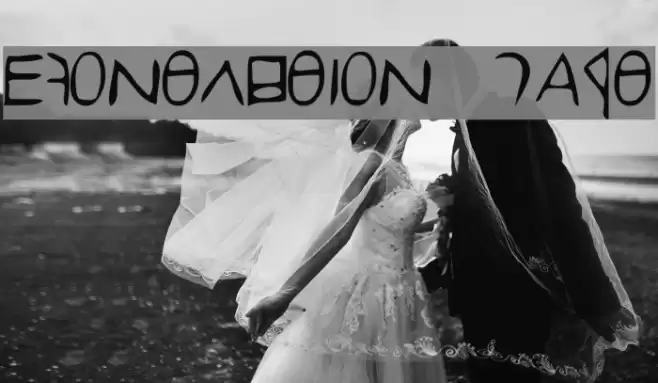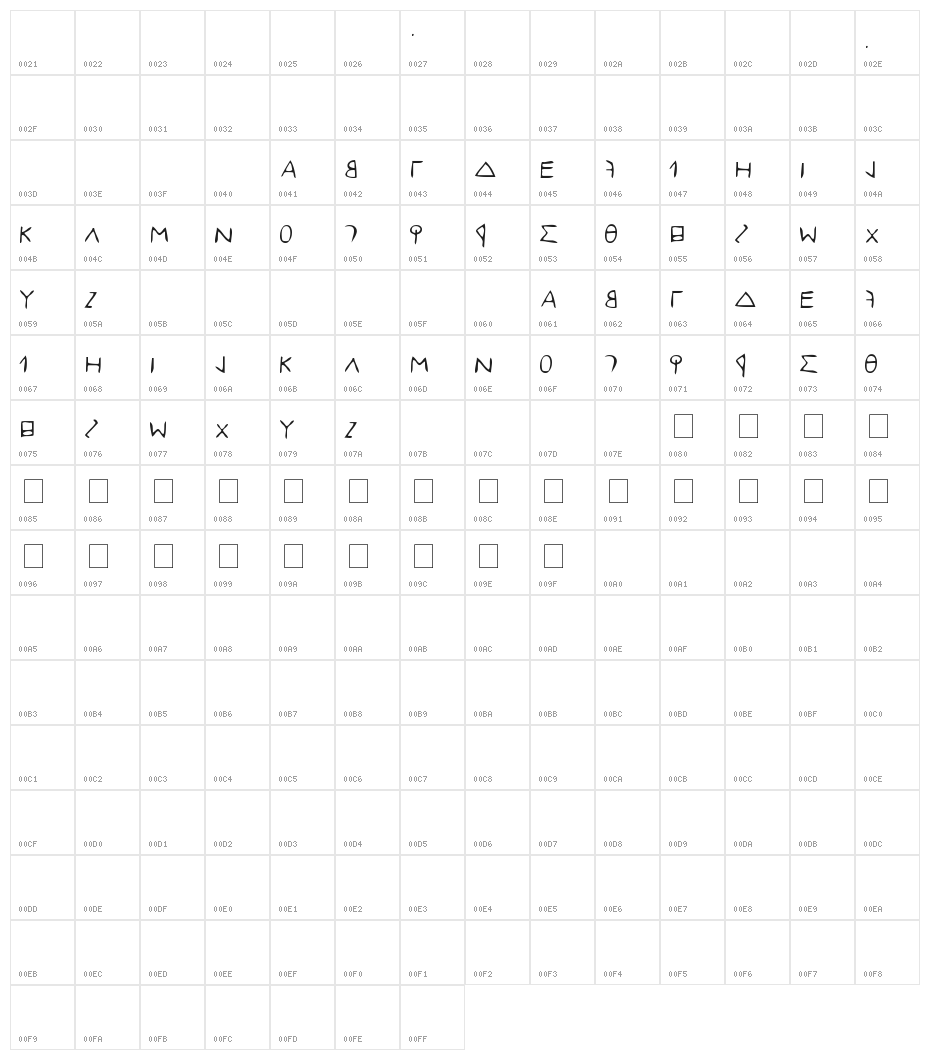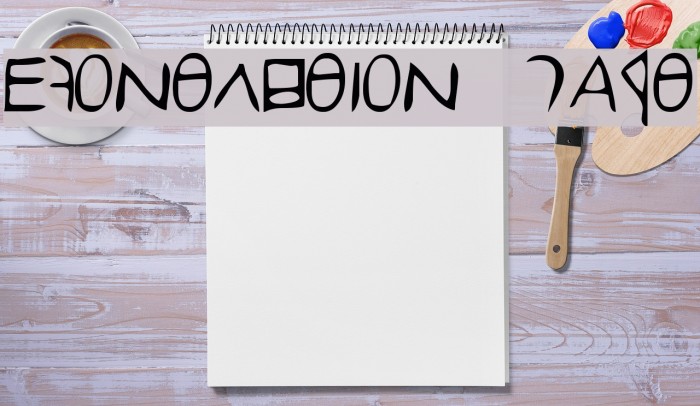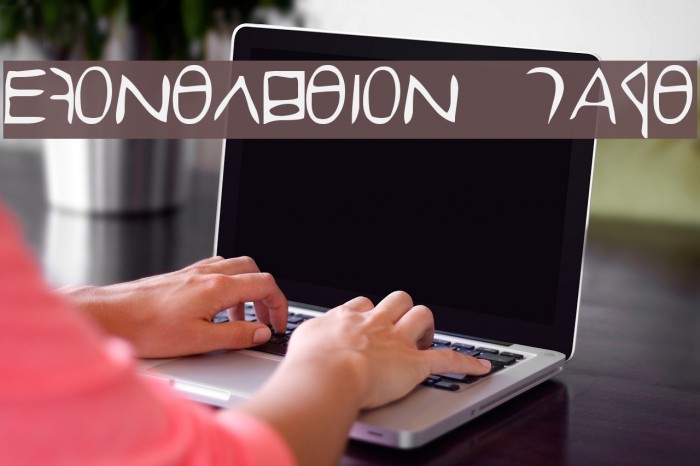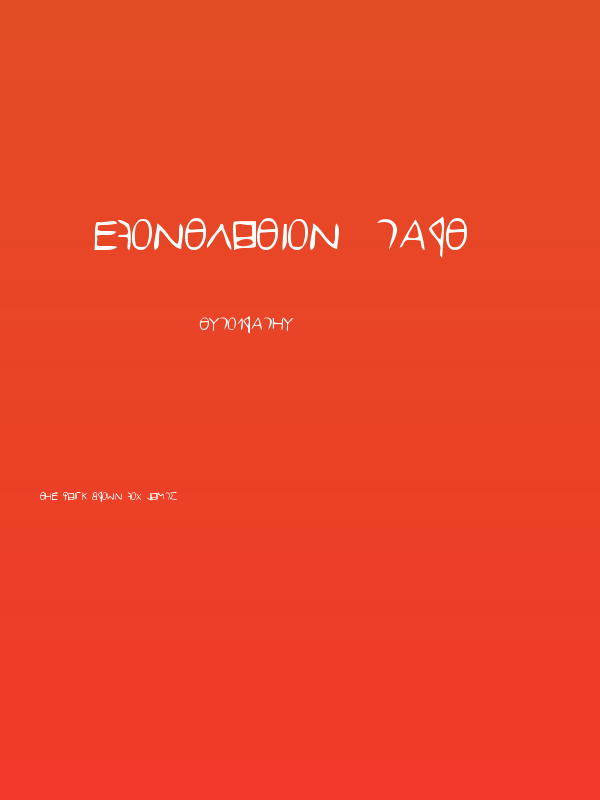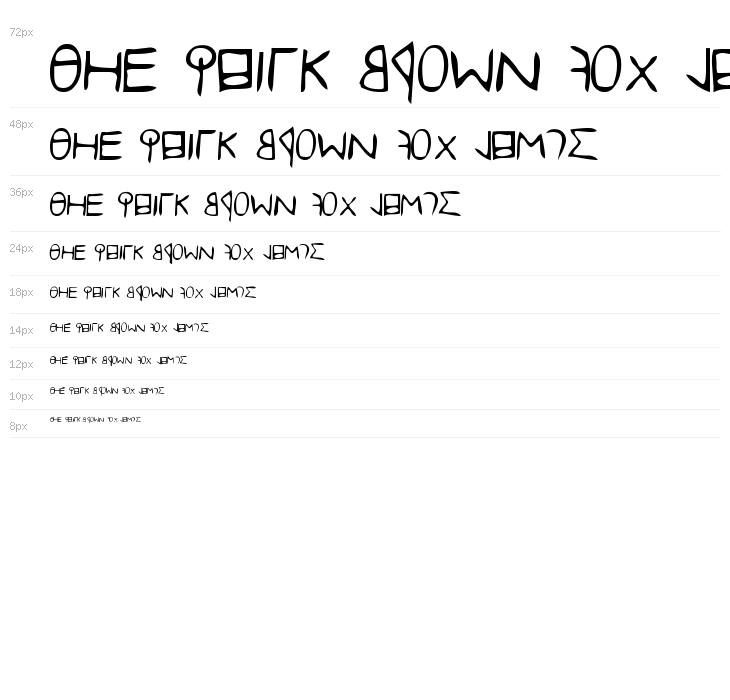
efontlution_part2 Font
efontlution_part2 Description
This font features a unique, ancient script-inspired design with angular and geometric shapes. The characters are bold and slightly irregular, giving them a hand-drawn appearance. The uppercase letters are particularly distinctive, with sharp angles and a sense of movement. The lowercase letters maintain a consistent style, complementing the uppercase with their own angular forms. The numbers and special characters follow the same design principles, ensuring a cohesive look across all elements. This font is ideal for projects that require a touch of historical or mystical flair, making it suitable for themed events, games, or creative branding.
An ancient script-inspired font with bold, angular, and geometric characters from Uncategorized fonts.
- Proposed Projects: Ideal for themed events, historical games, creative branding, or mystical designs.
- Overall Style: Ancient, Mystical
- Use Case: Logos, Headlines, Themed Events